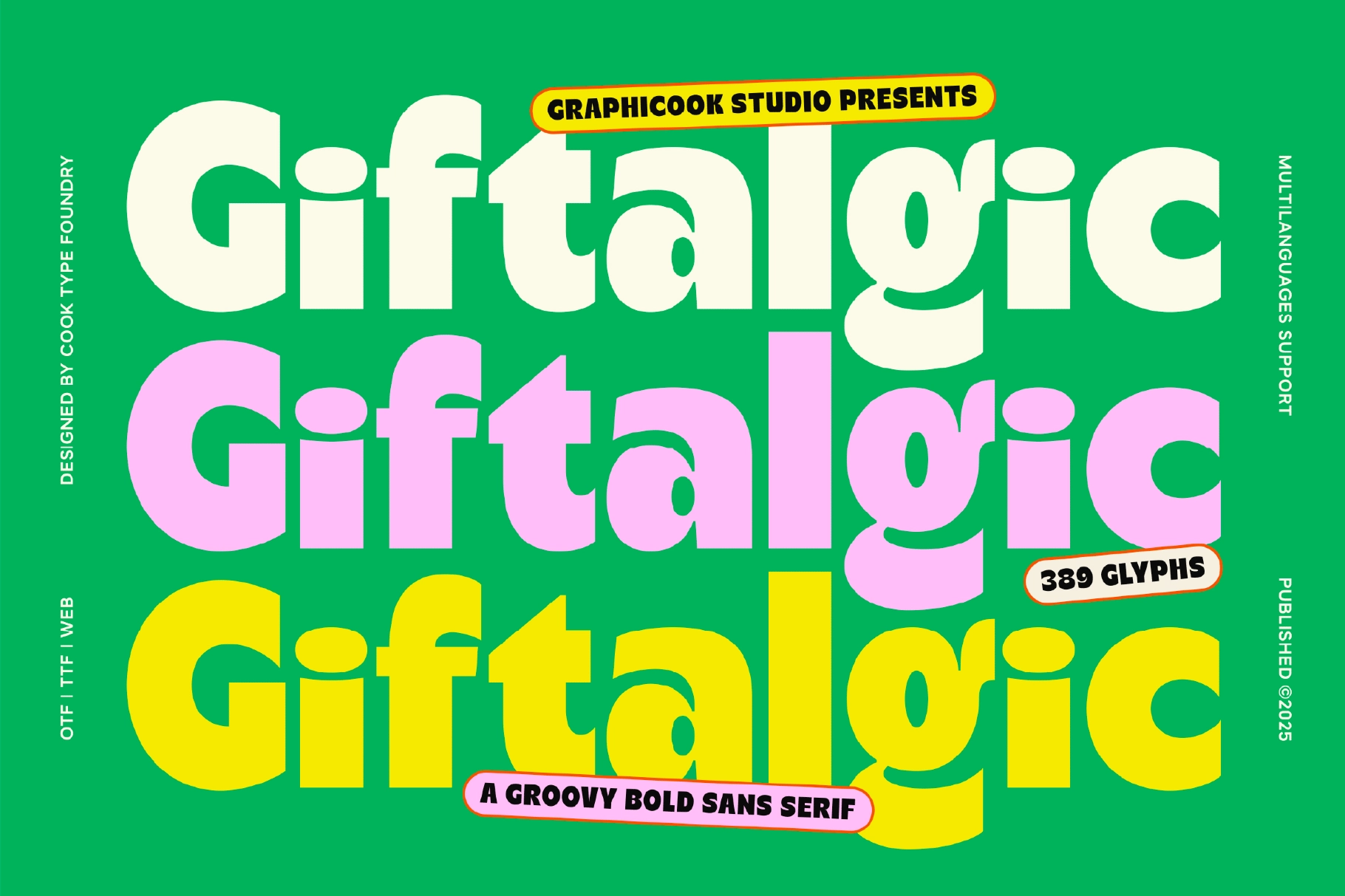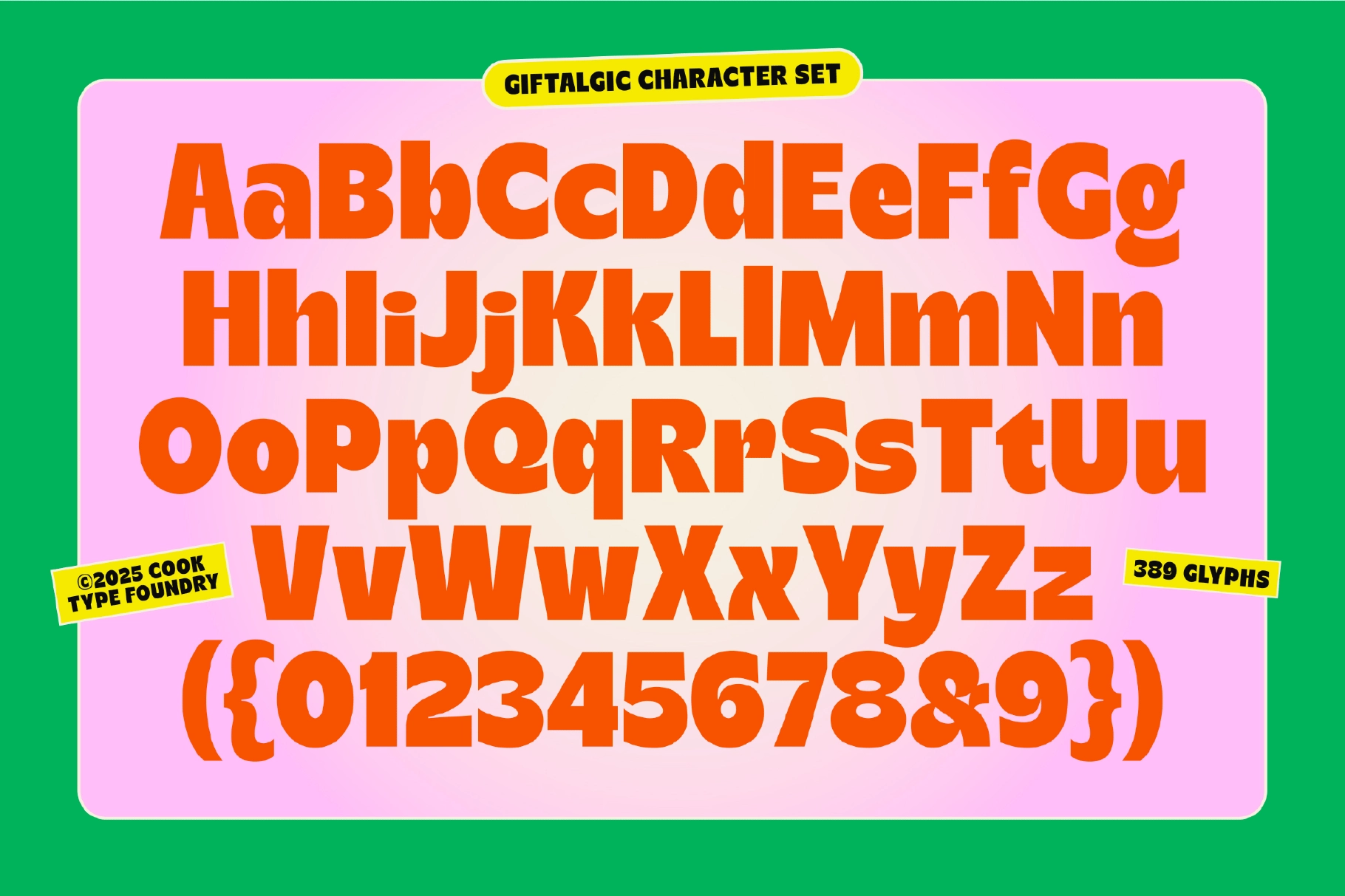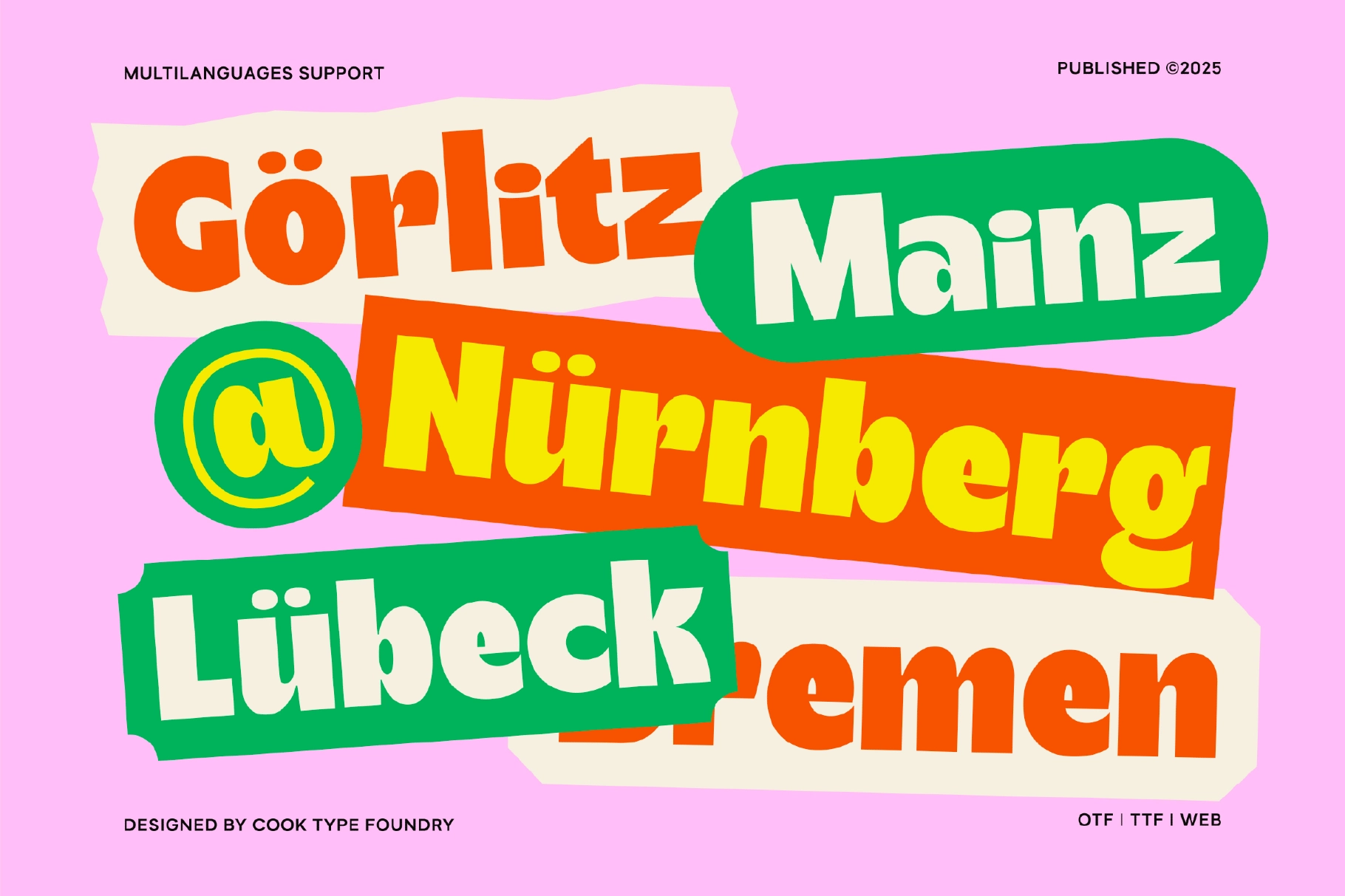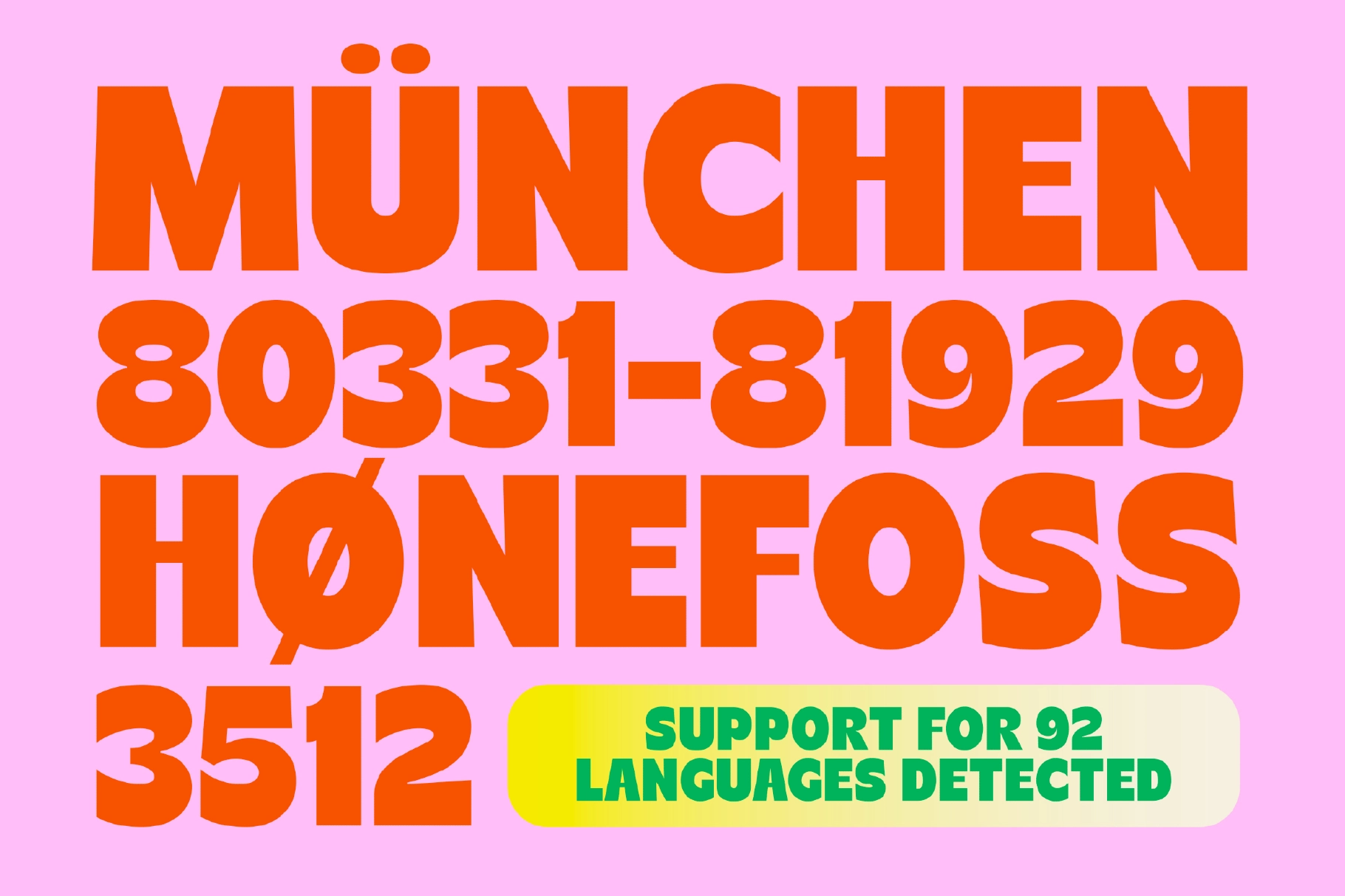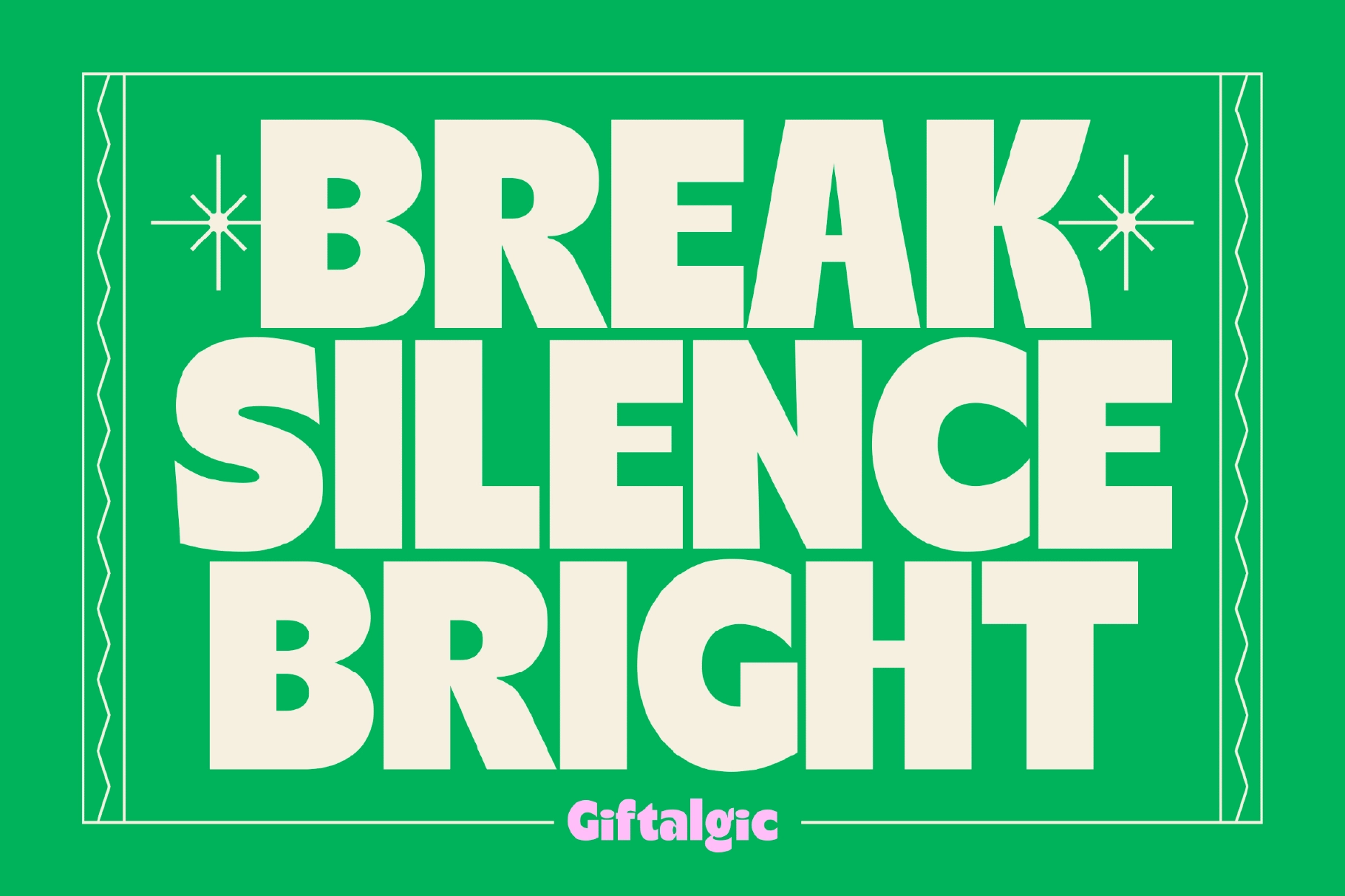
Giftalgic Font
Giftalgic
Giftalgic is a bold font that blends a classic 70s vibe with a touch of modern design. It’s perfect for posters, logos, and branding that aim to feel playful and nostalgic, yet fresh and contemporary.